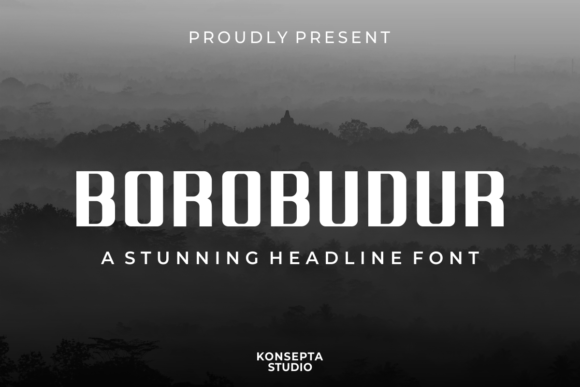
Borobudur Font
Journey to the Heart of Sans Serif Majesty: Borobudur Font
Unleash the power of Borobudur, a sans serif font family that echoes the grandeur of the 7 wonders of the world. Immerse yourself in a symphony of clean lines, striking curves, and sophisticated elegance. Borobudur is not just a font; it's an experience that transforms your digital creations into captivating masterpieces.
In the realm of typography, Borobudur stands tall as a beacon of versatility. Its characters possess an inherent charm that effortlessly adapts to a myriad of design landscapes. Whether you're crafting captivating headlines, weaving enchanting articles, designing visually striking websites or blogs, or bringing life to newspapers and magazines, Borobudur is your trusted companion, enhancing every word with grace and distinction.
But Borobudur's talents extend far beyond the confines of traditional typography. Unleash your creativity and explore its boundless potential in crafting logotypes that command attention, music or band logos that resonate with energy, and company logos that exude professionalism and prestige. Borobudur is your versatile muse, ready to elevate your designs to new heights of brilliance.
Beyond its aesthetic allure, Borobudur embodies functionality and ease of use. Its meticulously crafted characters ensure crisp and clear rendering across a wide range of digital platforms, guaranteeing a seamless and enjoyable experience for your audience. Whether viewed on high-resolution displays or low-bandwidth connections, Borobudur's beauty shines through, leaving a lasting impression on every user.
Join the ranks of discerning designers and creative professionals who have embraced Borobudur as their font of choice. Experience the transformative power of typography and elevate your designs to new heights of excellence. Let Borobudur be your guide on this creative odyssey, unlocking a world of possibilities and leaving an indelible mark on the digital landscape.